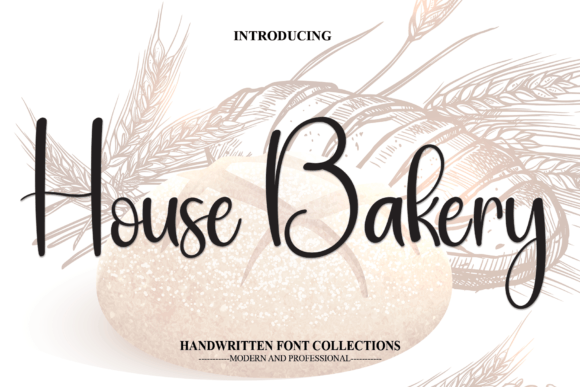
Have you ever stumbled upon a font that instantly sparks a creative idea? For me, it was when I saw the House Bakery Font for the first time. I was brainstorming ideas for a friend’s wedding invitation, and I knew I needed something that would convey the love and joy of the occasion. That’s when I discovered House Bakery Font – a sweet and friendly handwritten font that’s perfect for adding a touch of whimsy to your designs.
As a designer, you’re always on the lookout for fonts that can elevate your work and make it stand out. House Bakery Font is ideal for writing wedding invitations, cards, or any other design that needs a fun touch. Its creative and cute vibe is sure to capture the attention of your audience and leave a lasting impression.
Key Features of House Bakery Font
- Font Family: House Bakery Font is a unique and elegant script font, perfect for bakery and food-related businesses.
- Unique Characteristics: Features beautiful, flowing script lines, and subtle flourishes, adding a touch of sophistication to any design.
House Bakery Font Review
Overall, I’m really enjoying working with the House Bakery Font. Here are some things that work well: ✨
- The font has a warm and inviting feel, perfect for baking-related projects or anything that needs a homey touch.
- The font is highly legible, even at smaller sizes, which is great for body text or titles.
- The font includes a range of weights and styles, allowing for a lot of flexibility in how you use it.
That being said, there are some limitations to consider: ⚠️
- The font may not be the best choice for projects that require a more modern or edgy feel.
- The font is a bit on the heavier side, so it may not be the best choice for projects that require a lot of text or a more minimalist design.
Overall, I think the House Bakery Font is a great choice for projects that need a warm and inviting feel. While it may not be the best choice for every project, it’s a great addition to any designer’s toolkit.
Tips: Use House Bakery Font for headings and titles to add a touch of elegance to your designs. Experiment with different font sizes and colors to create visual interest.
Tips: Use House Bakery Font for logos, typography, and other design elements. Take advantage of the font’s elegant and sophisticated look to create visually appealing designs.
Tips: Use House Bakery Font for headings, titles, and body text to add a touch of sophistication to your presentations and documents. Experiment with different font sizes and colors to create visual interest.
House Bakery Font is ideal for:
- Restaurants and cafes
- Special occasion designs
Alternatives to House Bakery Font
Playfair Display is a luxurious, high-end font that exudes elegance and sophistication. It is perfect for use in wedding invitations, high-end branding, and luxury product packaging. Compared to House Bakery Font, Playfair Display is more formal and less casual, making it suitable for high-end applications.
Pacifico is a beautiful, cursive font that is perfect for use in creative and artistic applications. It is ideal for use in branding, packaging, and marketing materials where a touch of elegance and sophistication is desired. Compared to House Bakery Font, Pacifico is more fluid and less structured, making it suitable for applications where a more relaxed feel is desired.
Great Vibes is a modern, elegant font that is perfect for use in creative and artistic applications. It is ideal for use in branding, packaging, and marketing materials where a touch of sophistication and elegance is desired. Compared to House Bakery Font, Great Vibes is more modern and less traditional, making it suitable for applications where a more contemporary feel is desired.
Alex Brush is a beautiful, elegant font that is perfect for use in creative and artistic applications. It is ideal for use in branding, packaging, and marketing materials where a touch of sophistication and elegance is desired. Compared to House Bakery Font, Alex Brush is more refined and less casual, making it suitable for applications where a more polished feel is desired.